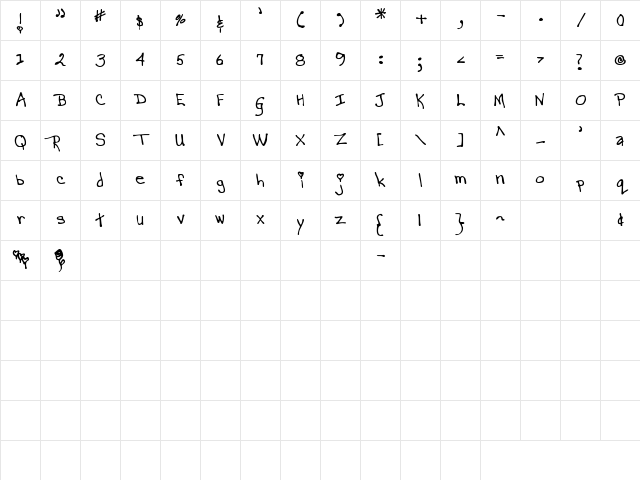
MTF Magical Marilyn Regular
Designer: Miss Tiina
Design Context for MTF Magical Marilyn
MTF Magical Marilyn is a composed and adaptable typeface that performs quietly and consistently across a wide range of design contexts.